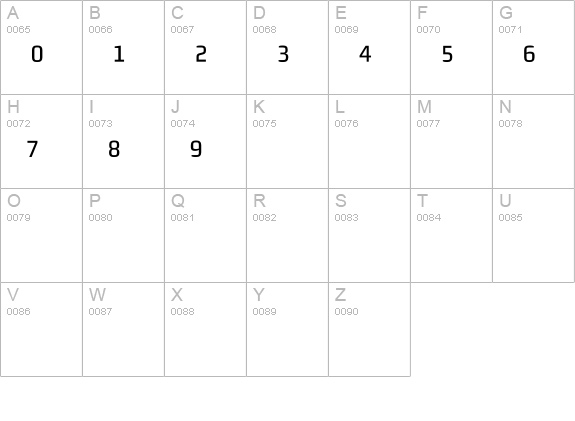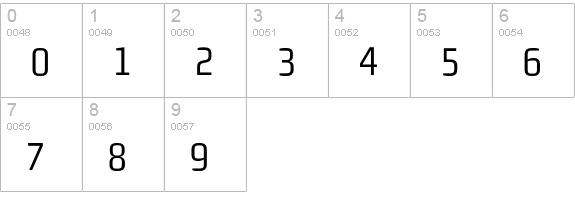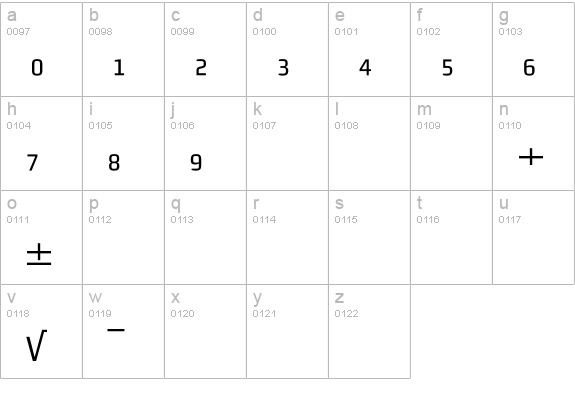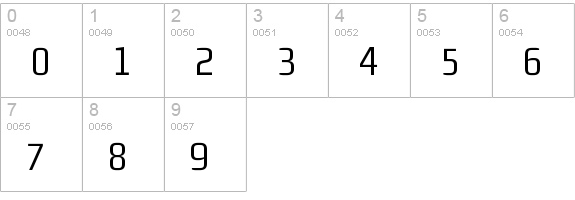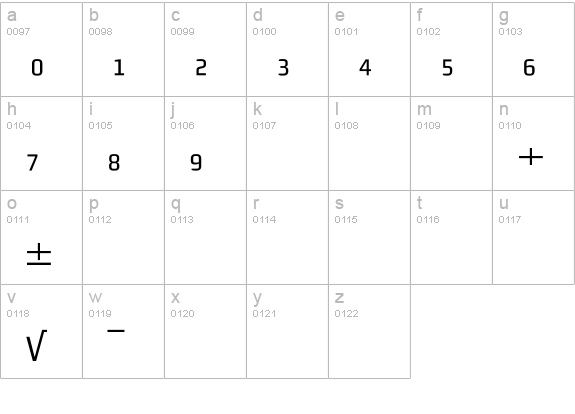
MorganSansCond RegularFigures Font Details
MorganSansCond RegularFigures font is a versatile and modern typeface that offers a perfect balance between elegance and functionality. With its clean lines and sleek design, this font is ideal for a wide range of projects, from branding and advertising to web design and editorial layouts. The figures in MorganSansCond RegularFigures font are meticulously crafted to ensure readability and consistency, making it a reliable choice for creating professional and polished designs. Whether you are working on a corporate presentation, a magazine layout, or a digital ad campaign, this font will elevate your project with its sophisticated style. Best of all, MorganSansCond RegularFigures font is available for free download at FontsMarket.com. Simply visit the website to access this high-quality typeface and enhance your design projects with its timeless appeal. Don't miss out on the opportunity to add this versatile font to your collection and take your designs to the next level.